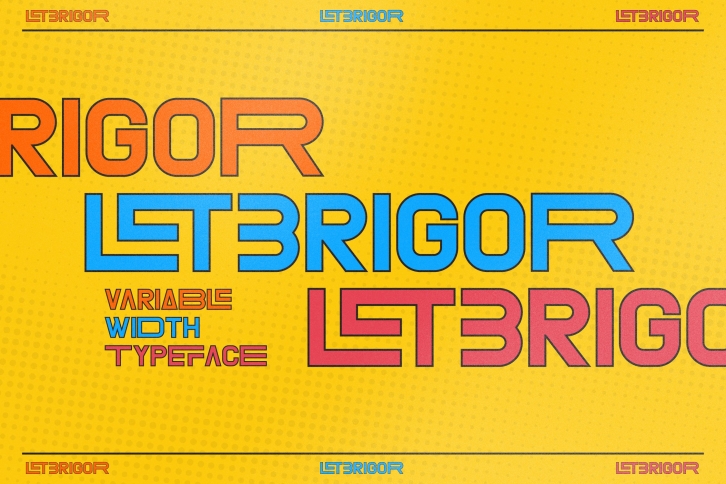
LETBRIGOR is a beautiful font that was designed by Pricilia Design. It's a great choice for designers and creatives who need such a font. It was released on September 19, 2022 and the file size is 8.16 MB. LETBRIGOR may give a more youthful, expressive and casual look to your project. It is a very beautiful, refined, elegant, and high-quality font.